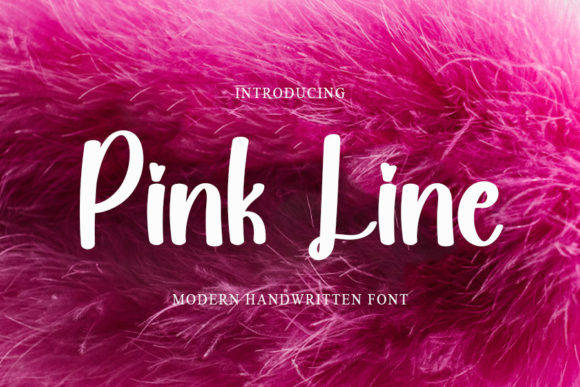
Step into a world of elegance and sophistication with Pink Line Font! This alluring handwritten script font, crafted with precision by the visionary minds at ONE DESIGN, is more than just a collection of characters; it's a work of art that transforms your designs into breathtaking masterpieces.
Indulge in the captivating allure of Pink Line Font, a symphony of swirling strokes and enchanting curves that bring a touch of magic to every word you write. Experience the joy of creating wedding invitations that whisper of love and commitment, cards that convey heartfelt emotions with every letter, and designs that radiate a unique and personal charm.
Whether you're a budding entrepreneur crafting a business plan or an artist seeking to infuse your creations with a touch of romance, Pink Line Font is the perfect companion for your journey. Its delicate strokes and playful personality add a touch of whimsy and delight, making your words dance off the page with grace and charm.
With Pink Line Font, your designs will transcend the ordinary and enter the realm of the extraordinary. Its versatility knows no bounds, allowing you to effortlessly craft logos that exude professionalism, social media posts that sparkle with creativity, and marketing materials that captivate and engage your audience.
Don't settle for ordinary fonts that blend into the background. Embrace the power of Pink Line Font and watch as your words transform into captivating works of art. Let your designs bloom with elegance, let your messages resonate with authenticity, and let your creativity soar to new heights with this enchanting script font.